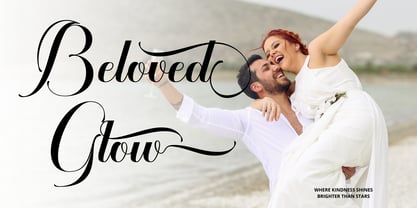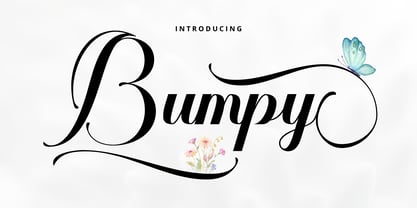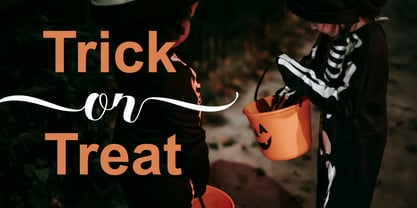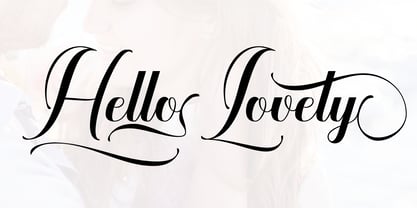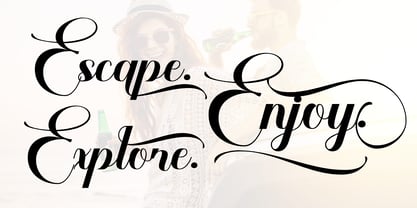
Bumpy
by Gian Studio
The Bumpy Font Family was designed by Yusliana M Isa and published by Gian Studio. Bumpy contains 1 styles. More about this family
✨ Bumpy – Modern Calligraphy Script ✨
Bumpy comes with a touch of modern calligraphy that flows naturally, giving a warm yet confident impression. Its bold yet soft and playful characters bring every design to life with authenticity.
Perfect for various creative projects: invitations, posters, branding, packaging, and even print-on-demand products. With its elegant yet fun style, Bumpy is ready to add a personal touch to all your designs.
Bumpy is more than just a font—it’s an expression of style, balancing elegance and energy.